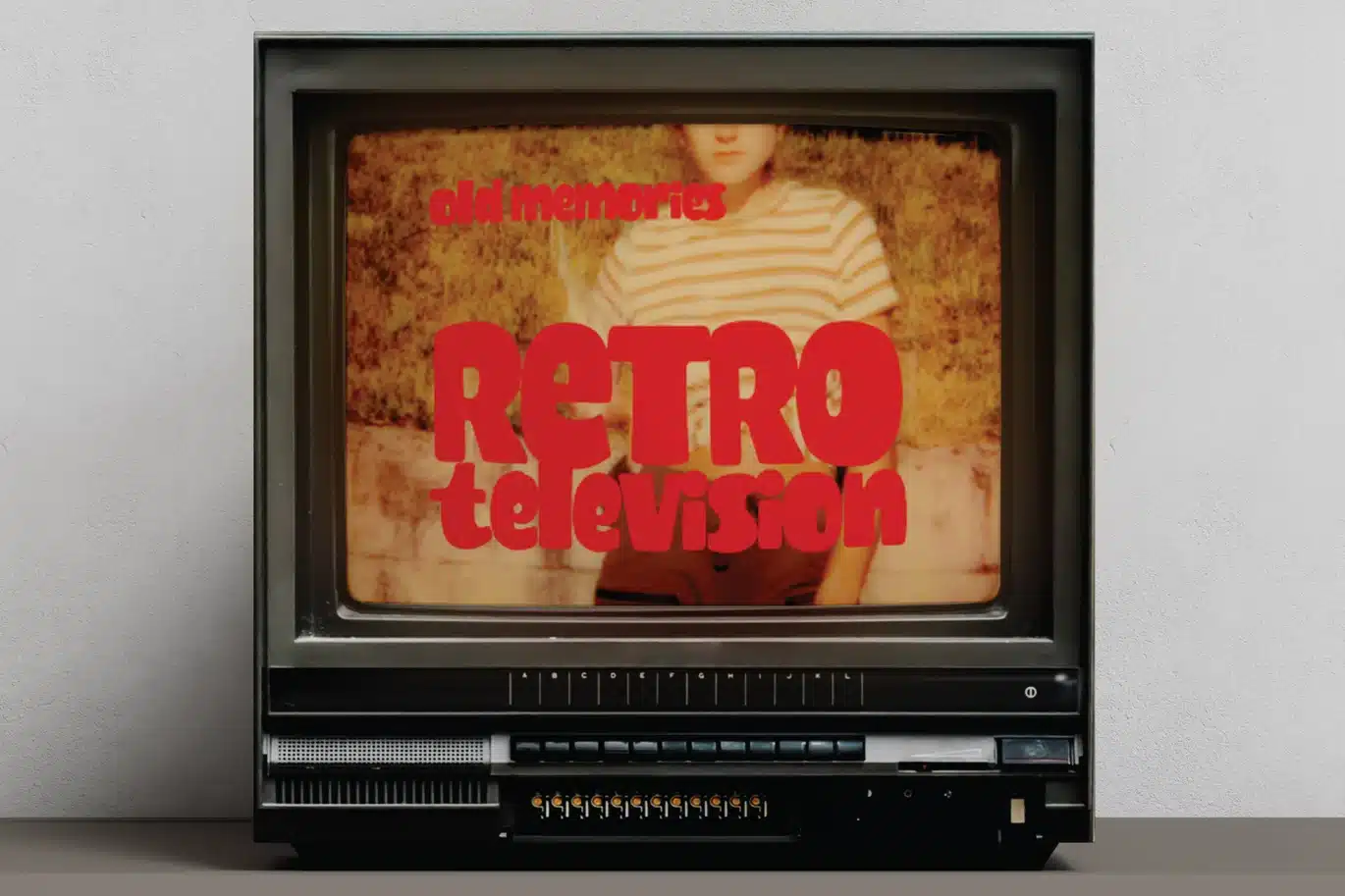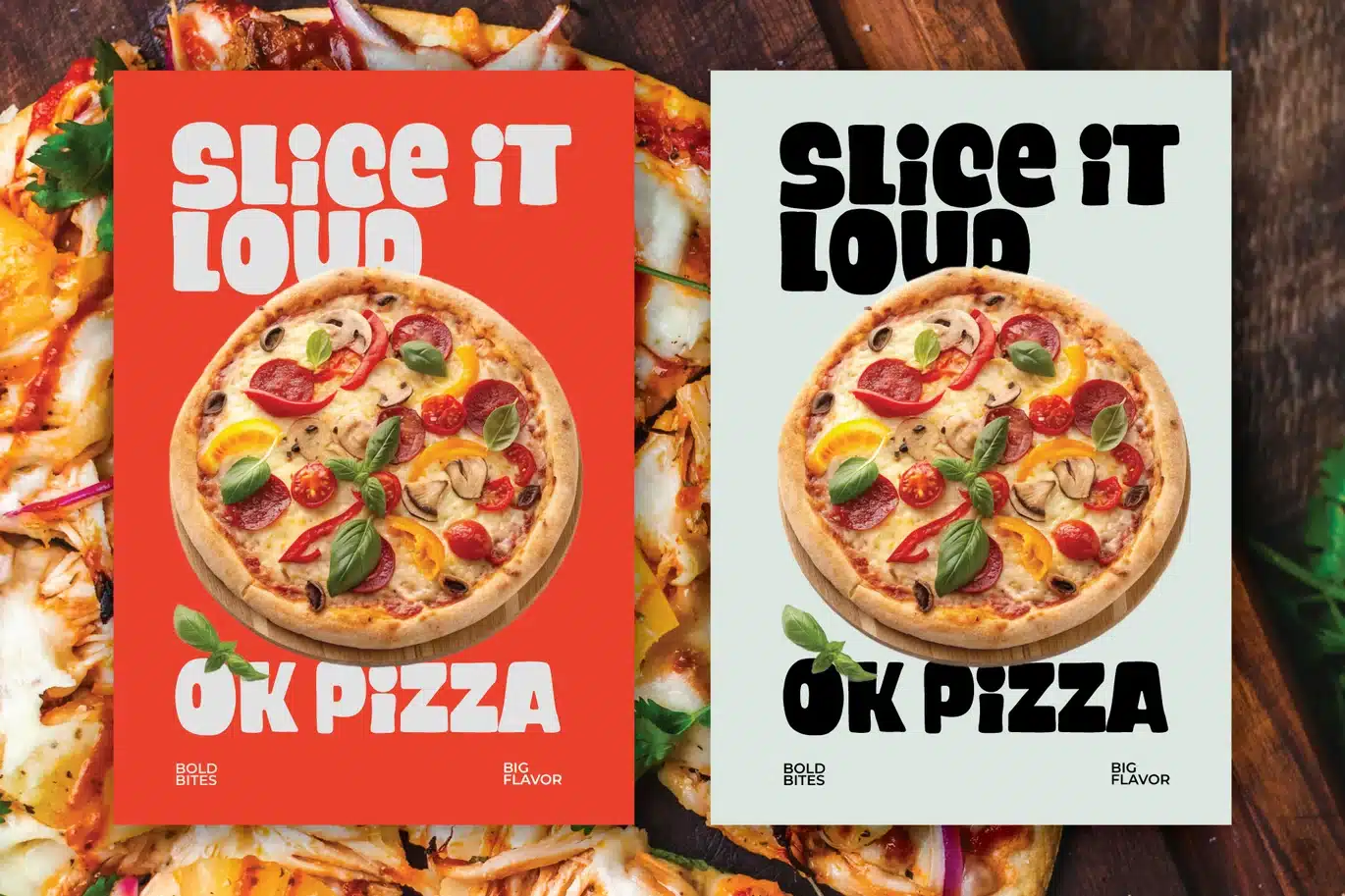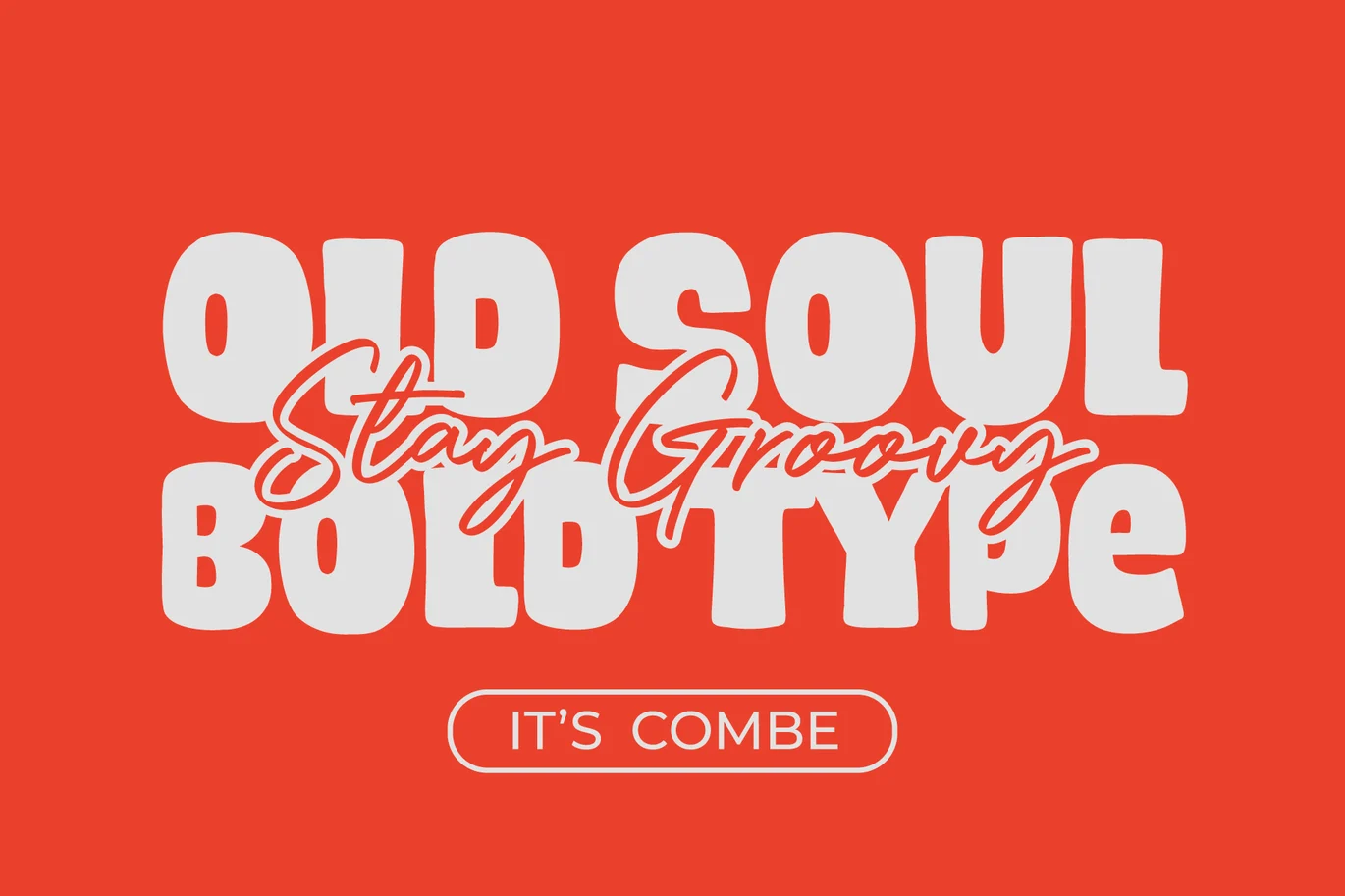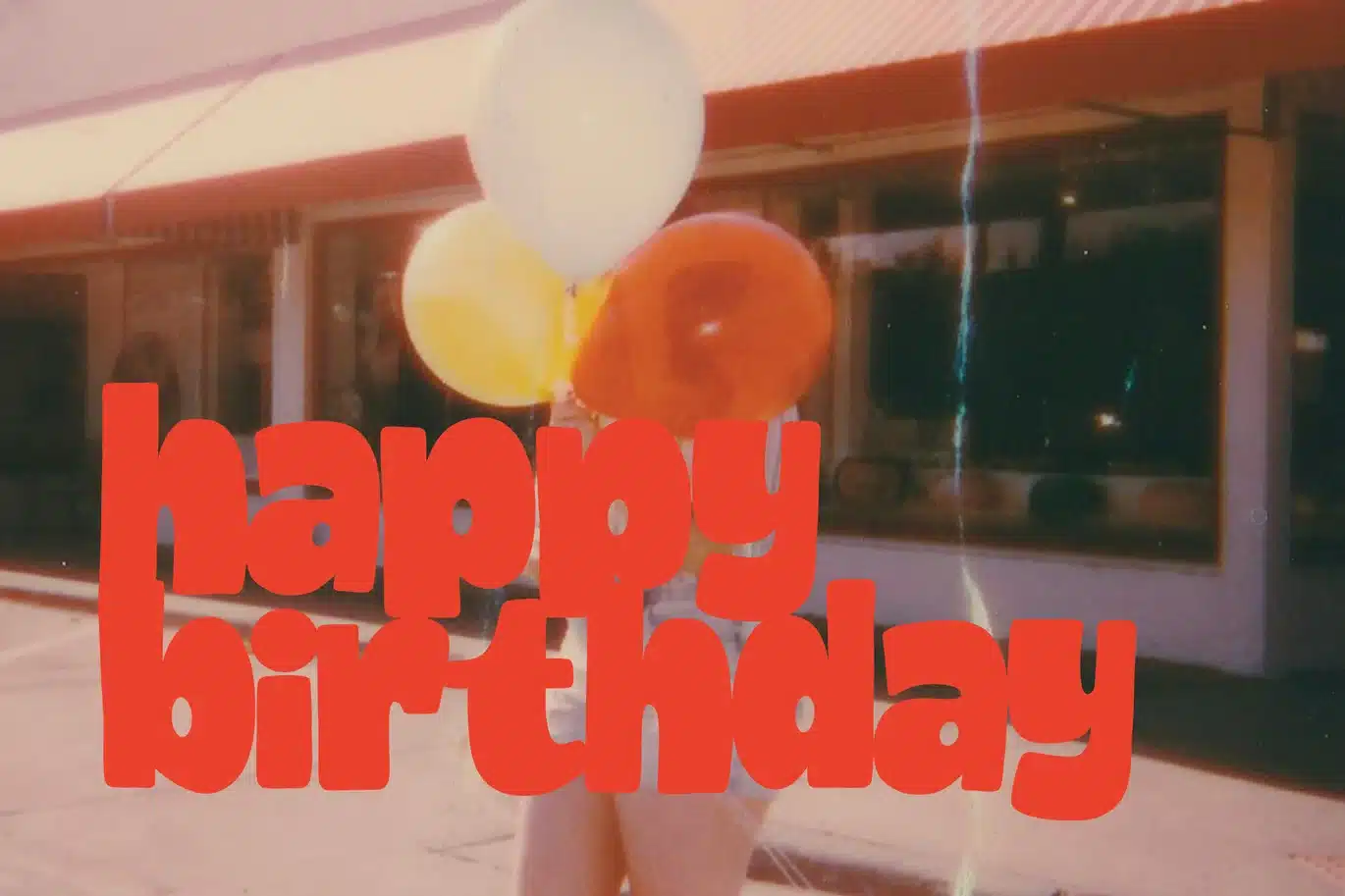
Combe – Retro Bold Sans Font
Combe is a retro bold sans serif font with thick, heavy letterforms and a playful striking personality. Designed to make a strong visual statement, this typeface features soft curves and chunky shapes that create a fun, bold, and eye-catching presence.
Note:Perfect for retro designs, bold headlines, posters, branding, packaging, and any creative project that needs a strong and playful typographic impact.